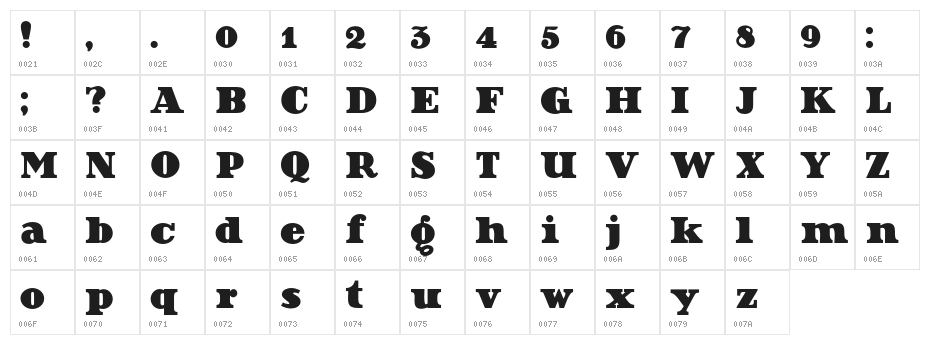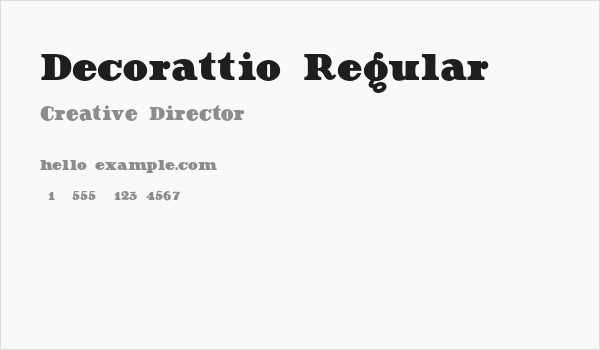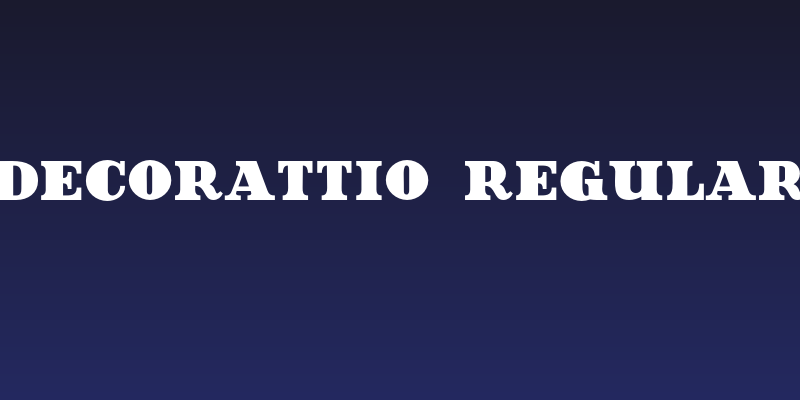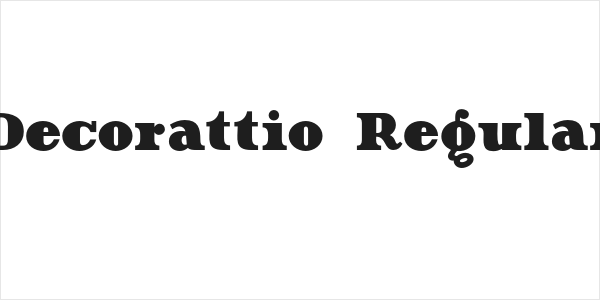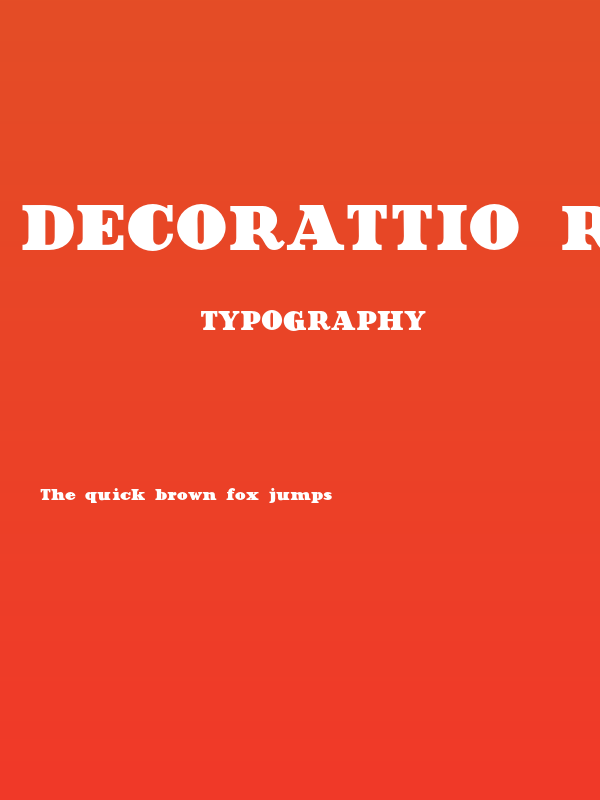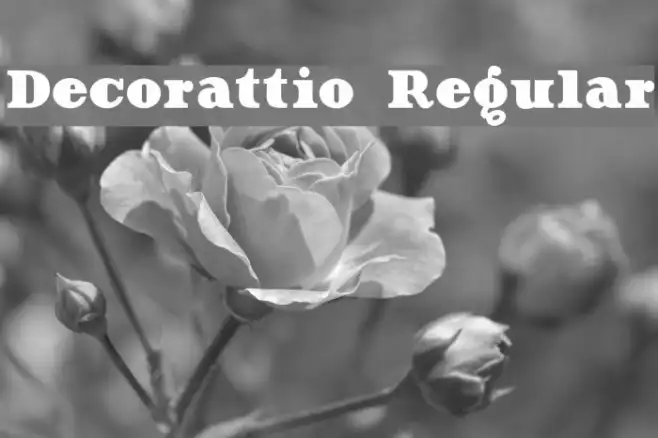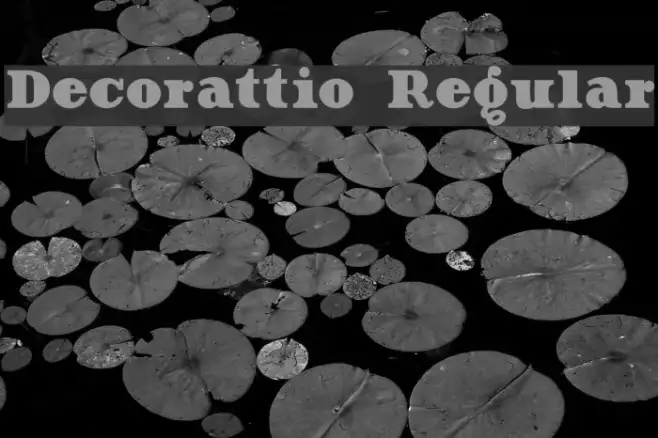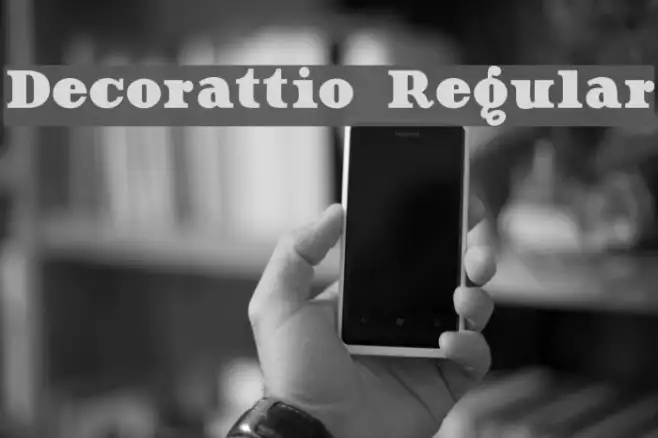
Decorattio Regular Font
Decorattio Regular Description
This font features a bold and decorative style with strong, thick strokes and high contrast between thick and thin lines. The serifs are pronounced and add a classic touch, while the overall design maintains a modern flair. The uppercase letters are robust and commanding, making them ideal for headlines or titles. Lowercase letters maintain the same boldness, ensuring readability and impact. Numbers and special characters are designed with the same attention to detail, providing a cohesive look across all characters. The font's spacing is tight, which enhances its bold appearance and makes it suitable for impactful designs.
| Proposed Projects | Ideal for branding, poster design, headlines, and any project requiring a strong visual impact. |